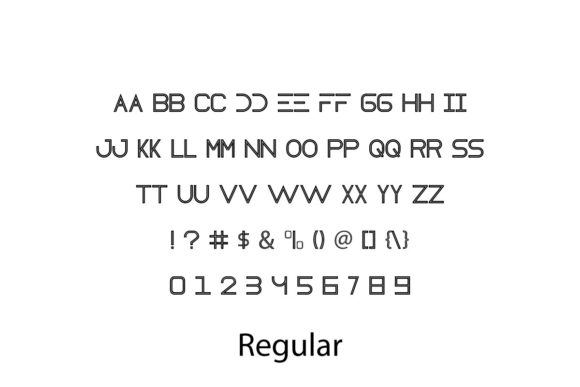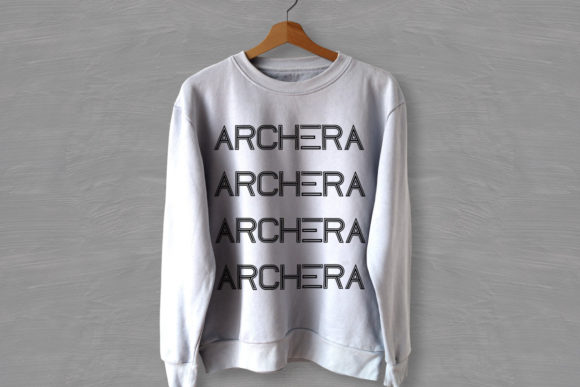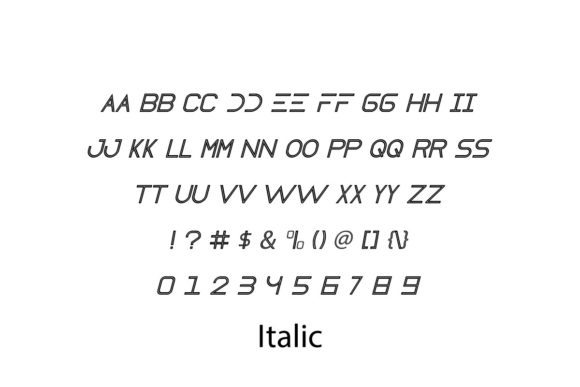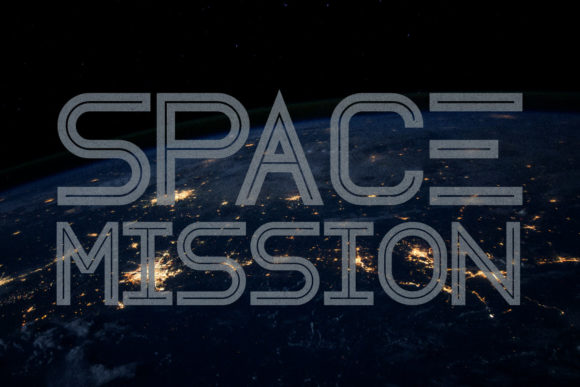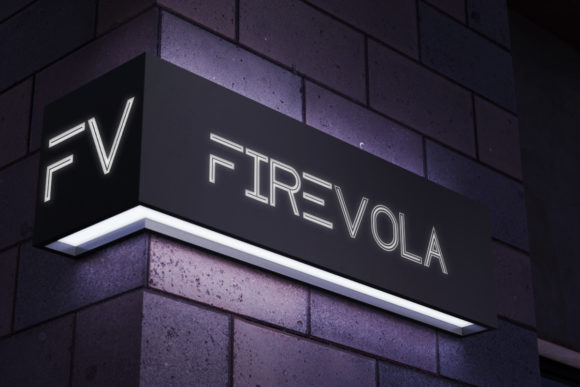
Introducing the Destia Font, a cool and modern display font that’s designed to elevate your crafting ideas. Whether you’re creating cards, branding materials, labels, or anything in between, Destia Font is the perfect addition to your toolkit. With its sleek and stylish look, it’s no wonder why designers are falling in love with this versatile font.
So, what makes the Destia Font so valuable for designers? Its versatility, of course! With Destia Font, you can create anything from bold and eye-catching headlines to elegant and sophisticated typography. Whether you’re a seasoned designer or just starting out, the Destia Font is sure to become your go-to choice for any creative project.
Destia Font Key Features
- Font Family: Destia Font is a sans-serif font family, designed for use in digital and print media.
- Unique Characteristics: Destia Font features a modern and clean design, with a distinctive x-height and a subtle contrast between thick and thin strokes, giving it a unique and recognizable appearance.
Destia Font Review
Overall, I think Destia Font is a decent addition to any designer’s toolkit, but it has its limitations. Let’s dive in and see what it has to offer.
- Destia Font has a clean and modern aesthetic that works well for digital interfaces, making it a great choice for web designers.
- The font’s variable font technology allows for smooth interpolation between styles, making it easy to customize and fine-tune the look and feel.
- Destia Font supports a wide range of languages, making it a great choice for designers working on international projects.
- Destia Font can be a bit too minimalist for some designers, lacking the character and personality of more ornate fonts.
- The font’s variable technology can be a bit finicky, requiring careful adjustment to achieve the desired look and feel.
- Destia Font may not be the best choice for print designs, where a more robust and textured font may be preferred.
Destia Font is a solid choice for designers looking for a clean and modern digital font. While it has its limitations, it’s a great addition to any designer’s toolkit. With careful adjustment and a clear understanding of its capabilities, Destia Font can be a valuable asset for a wide range of design projects.
Destia Font is commonly used in:
- Logo designs and branding materials.